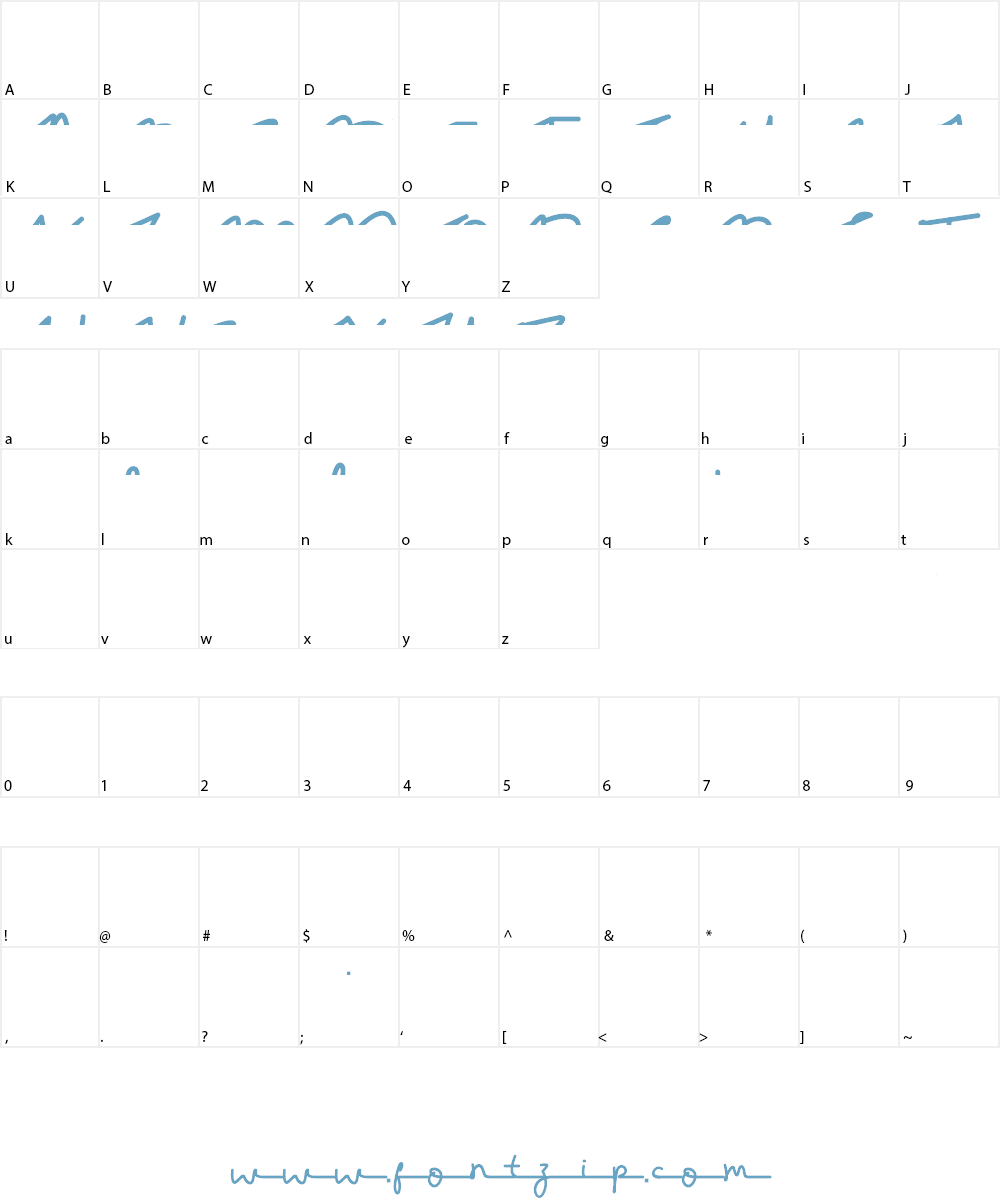
hi friends, introduce me andrea, nirmala graphics creator. this time I released a new font called "garfield". yes I took this name from the name of the film "Garfield", a cute and adorable cat. because it was inspired by his funny behavior, I made this font by combining 2 styles, signature and latin. I can use this font for any needs. like: brochures, business cards, clothing labels, application icons, or whatever. This font also supports multilingual languages plus 30 ligature.